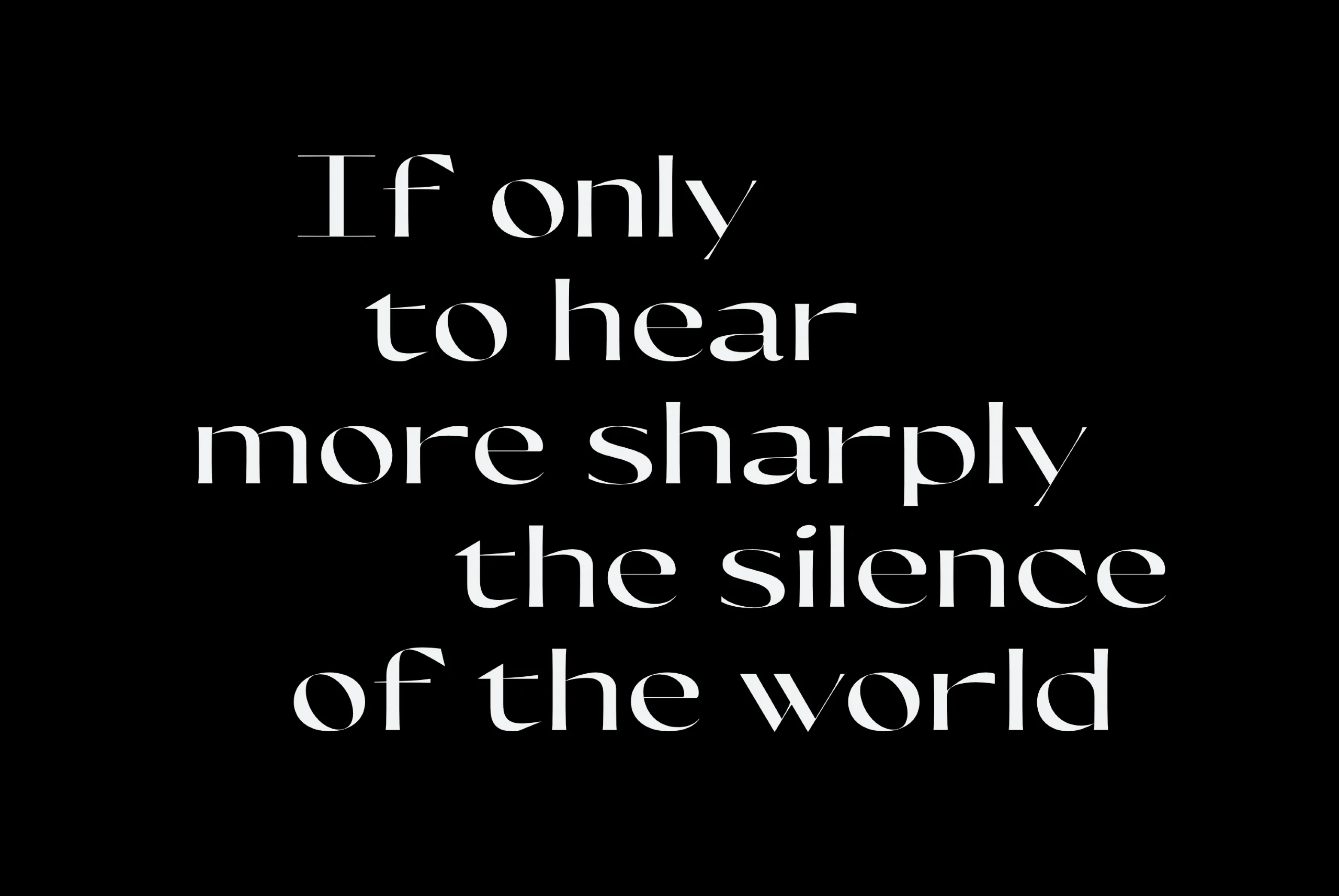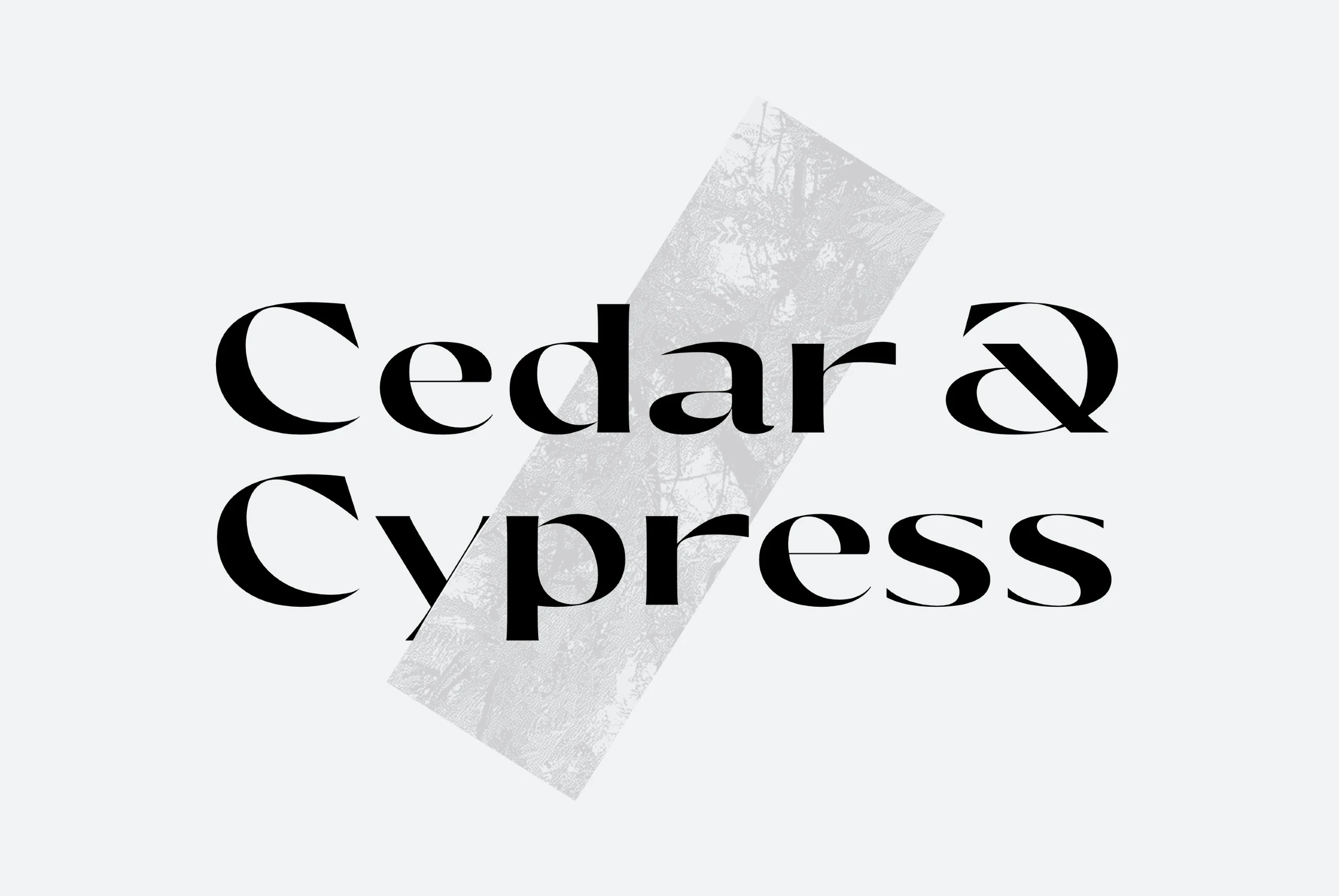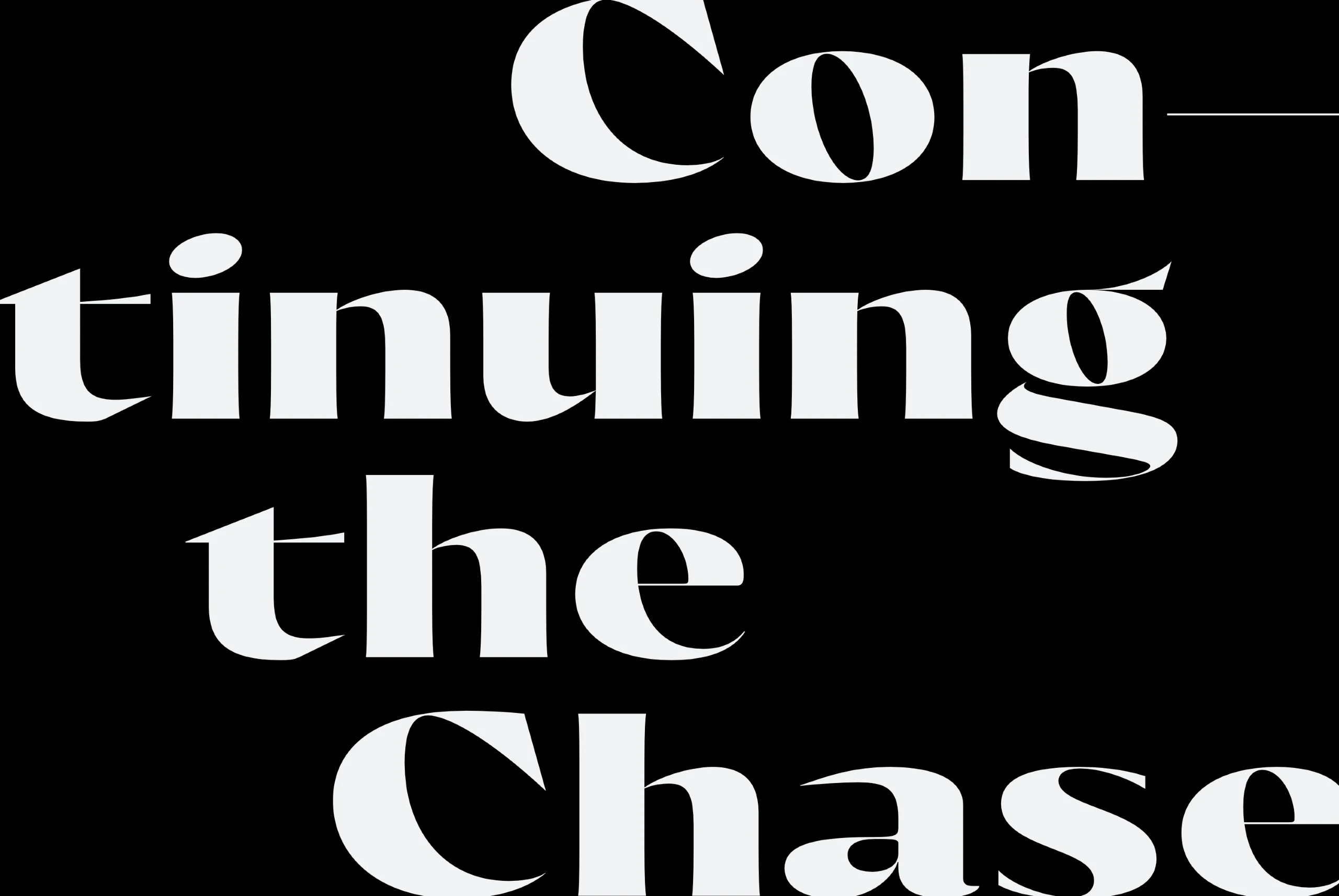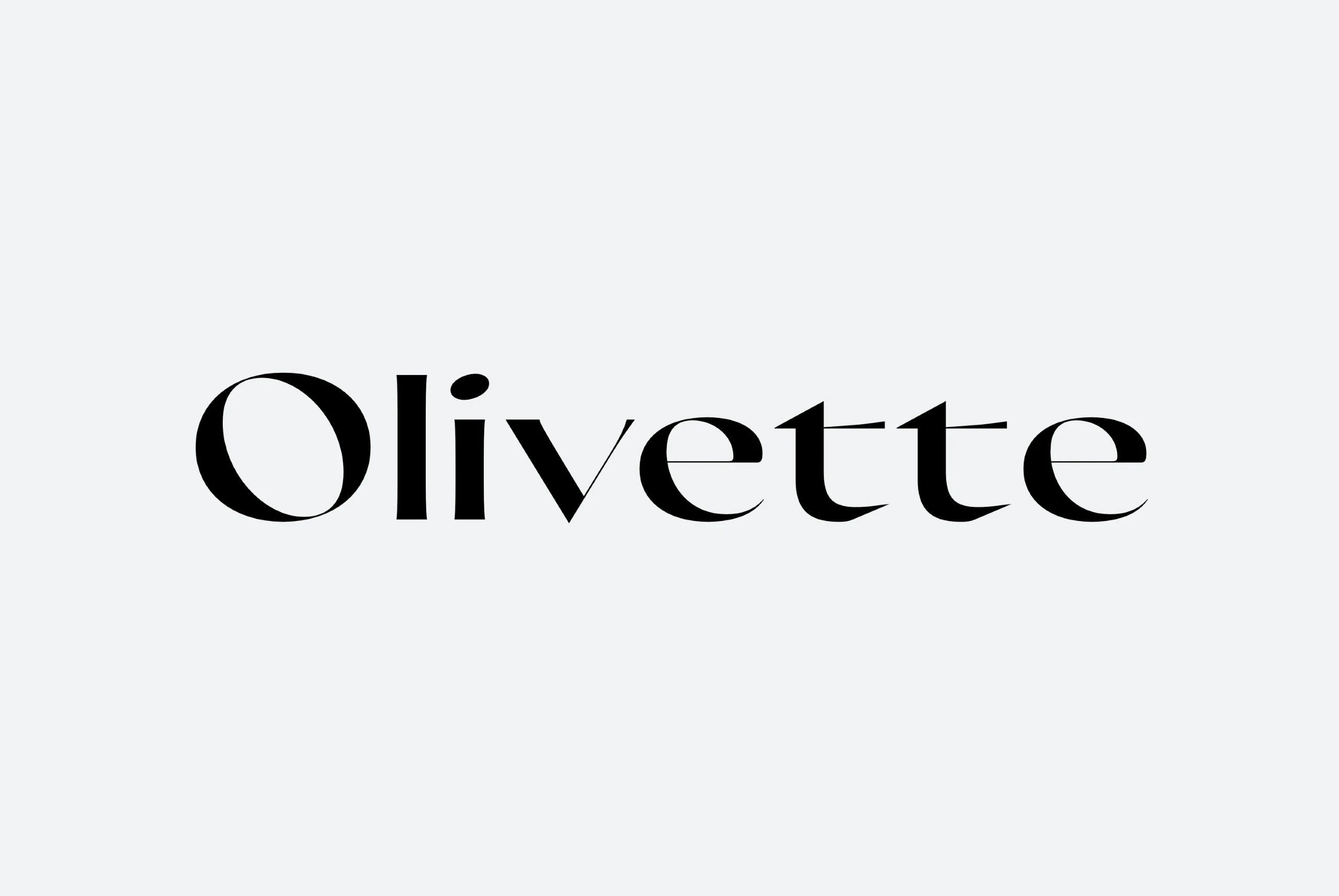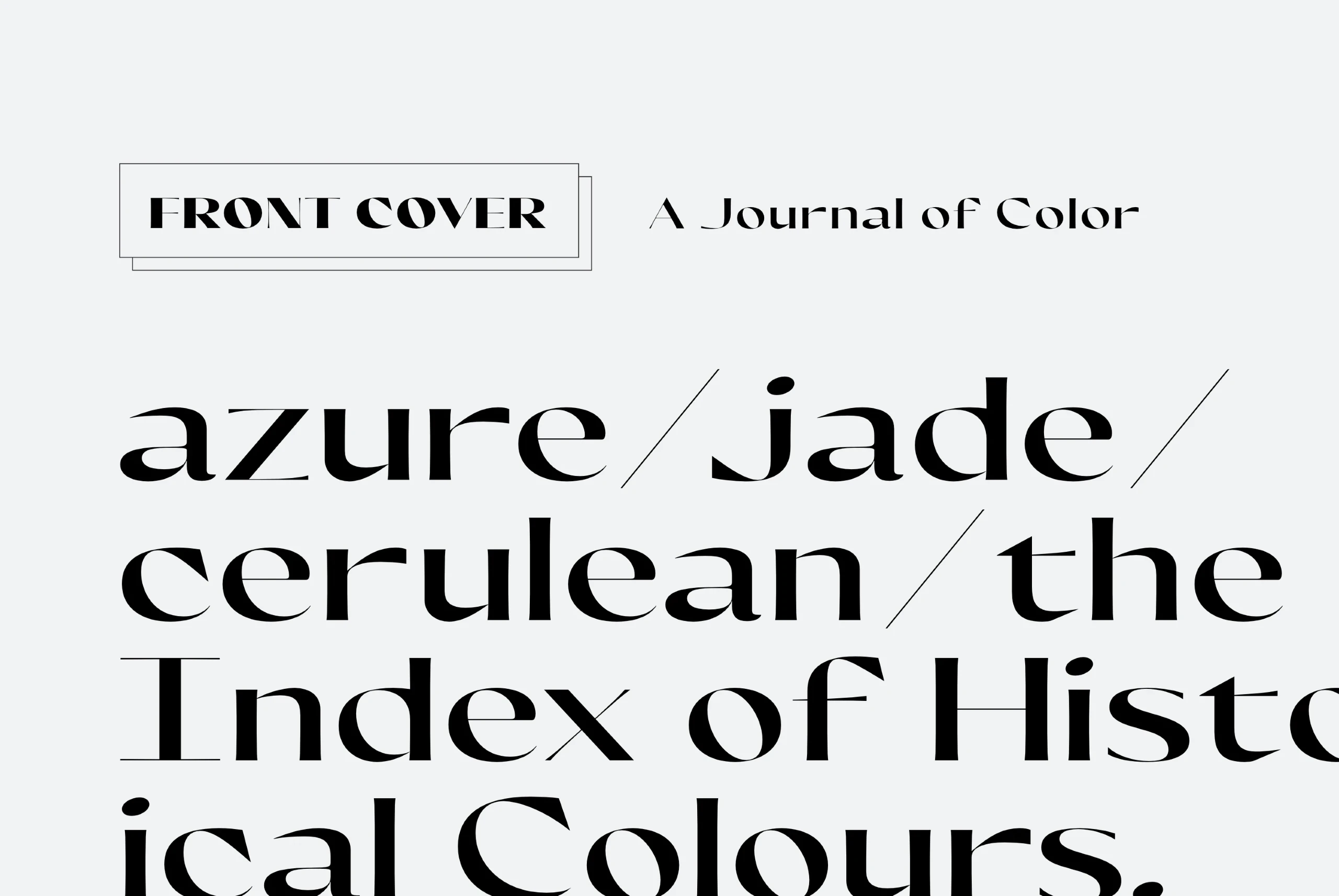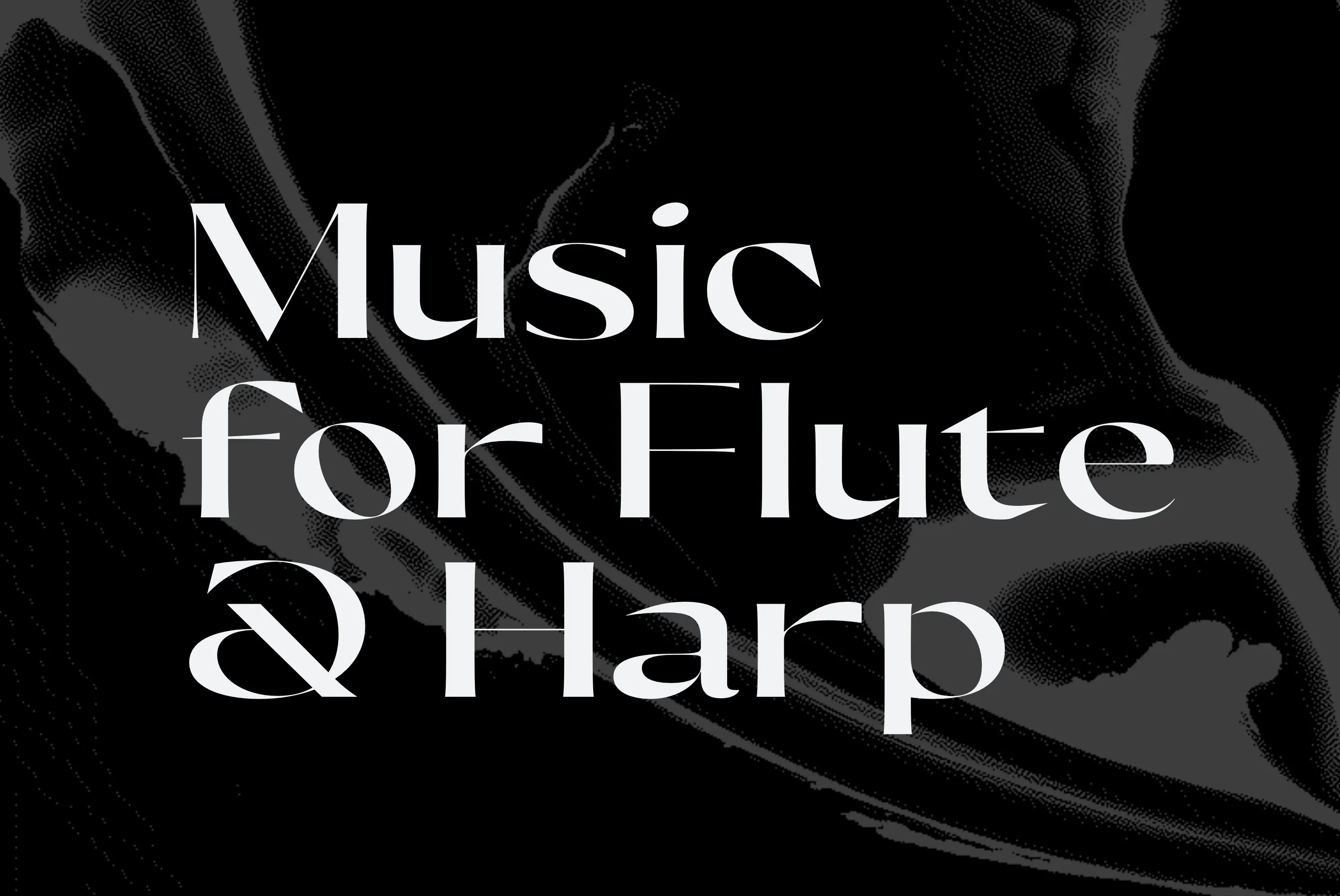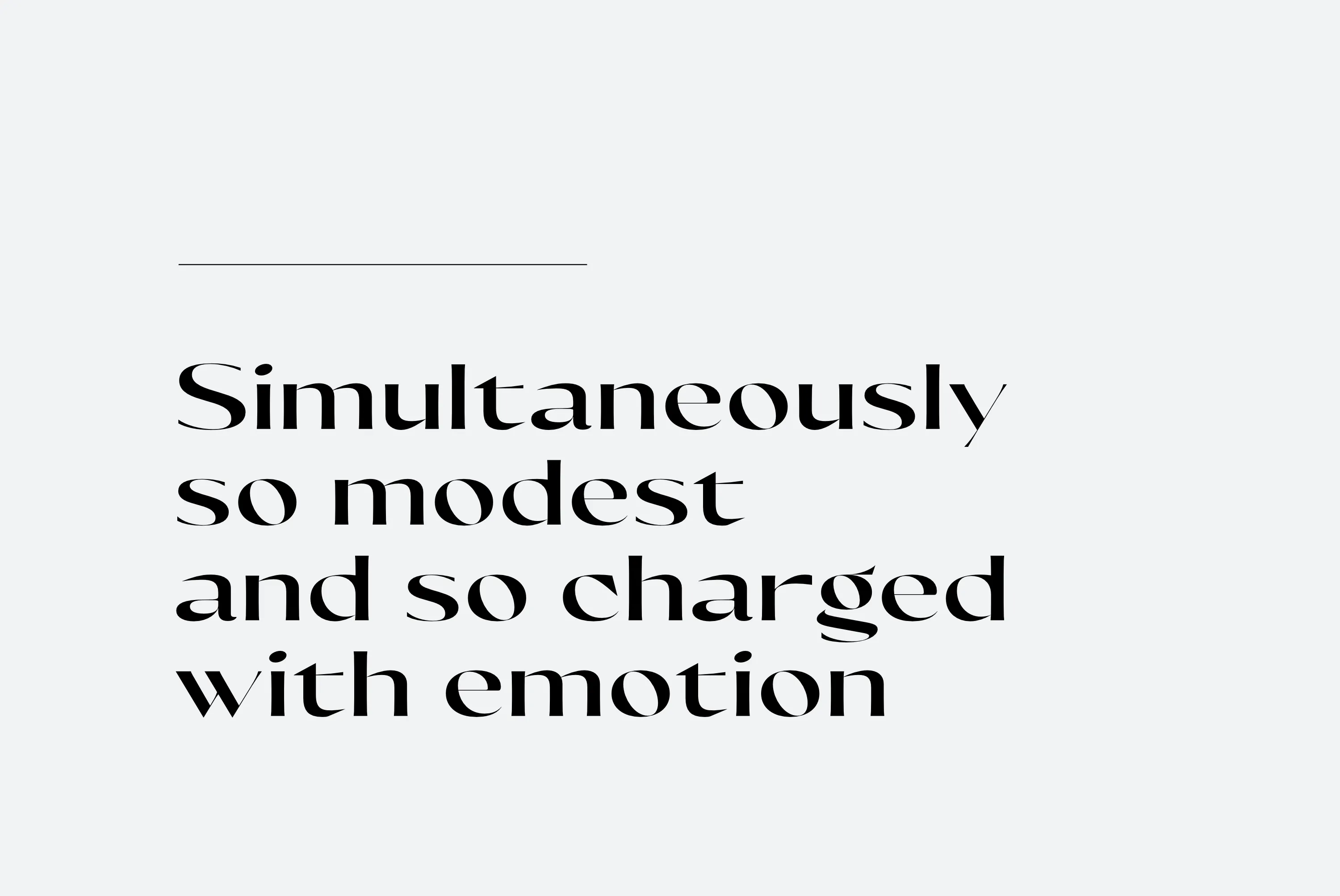
Olivette
Olivette Font Family
With an extreme stroke contrast and wide, spacious construction, Olivette blends understated minimalism with elegance and expression. Olivette’s fine details shine at large sizes on screen and in print. Olivette CF pairs well with simple typefaces set at smaller sizes, such as Greycliff CF and Artifex Hand CF. The key is to let Olivette breathe, setting it at large sizes with plenty of open space.
six Weights in Latin & Stylistic Sets Script
Ligatures
Contextual Alternates
Stylistic Alternates
Stylistic Set 1
Stylistic Set 2
Fractions
Ordinals